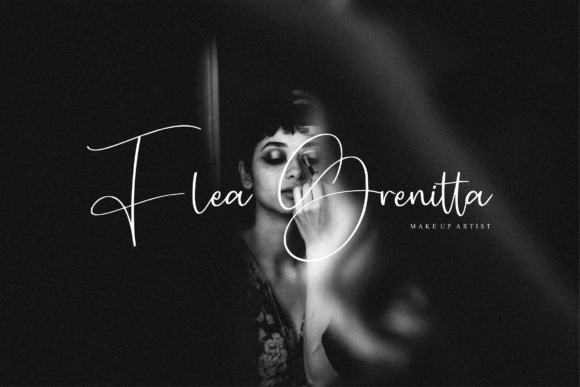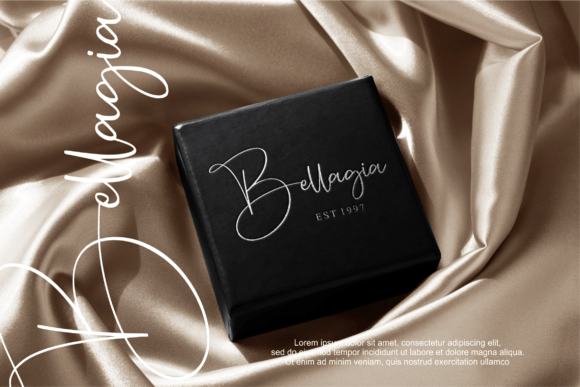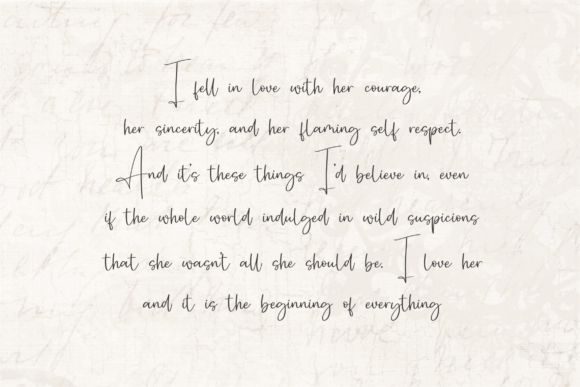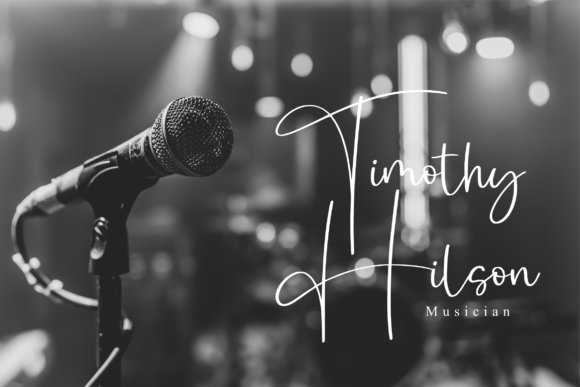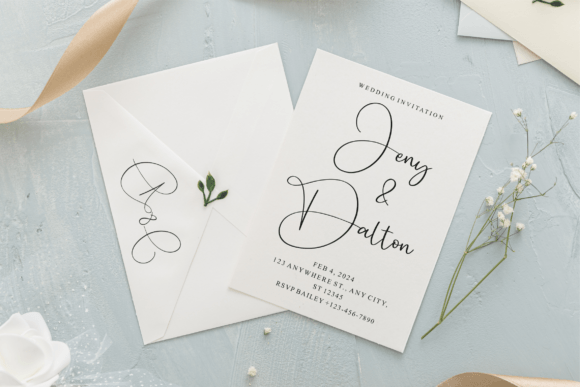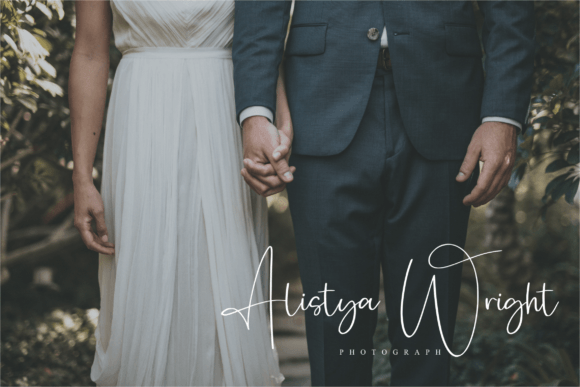
Introduction to Rainsnight Font
Rainsnight is a Modern Calligraphy Font Rainsnight is perfect for product packaging, branding project, megazine, social media, weddings, or just used to express words above the background.
Key Features of Rainsnight Font